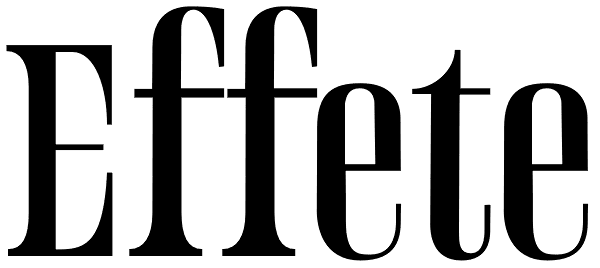
Effete
Effete is a metropolitan titling typeface, similar in weight and proportion to fonts like Imre Reiner's Corvinus, but both more expressive and less goofy. Effete conveys a sense of quality and authenticity.